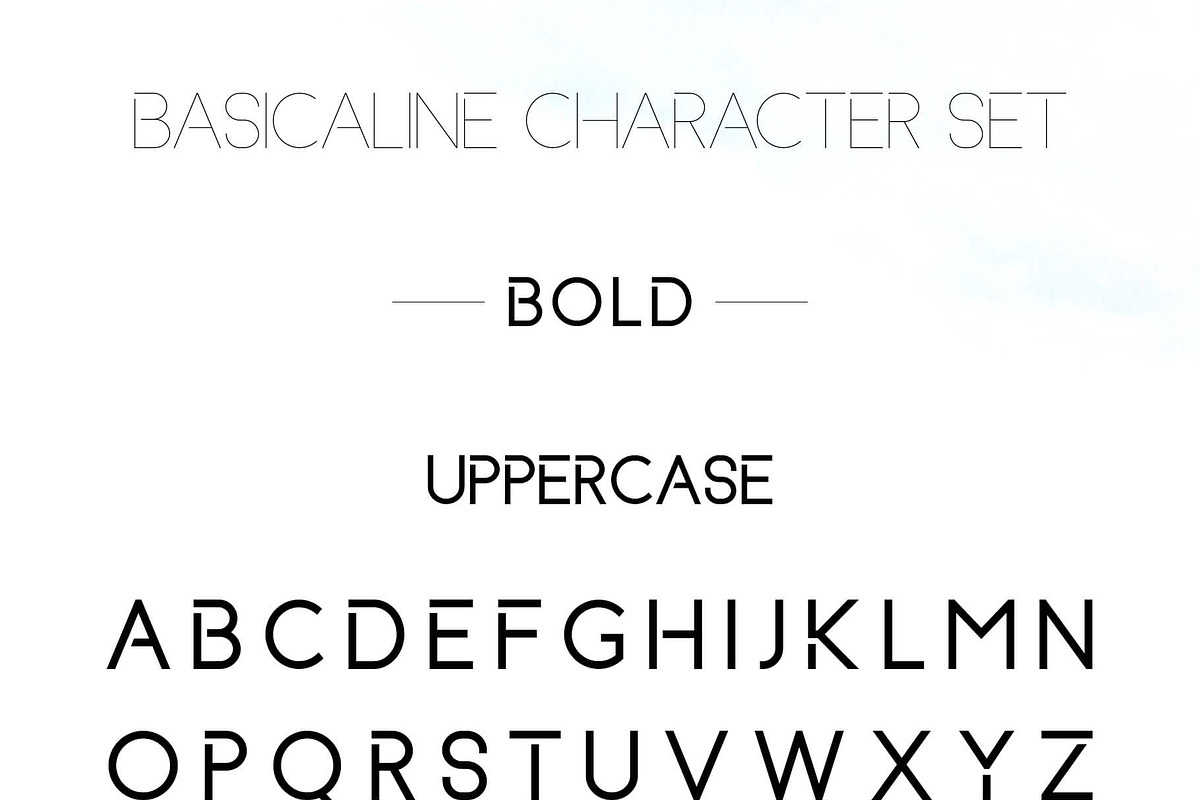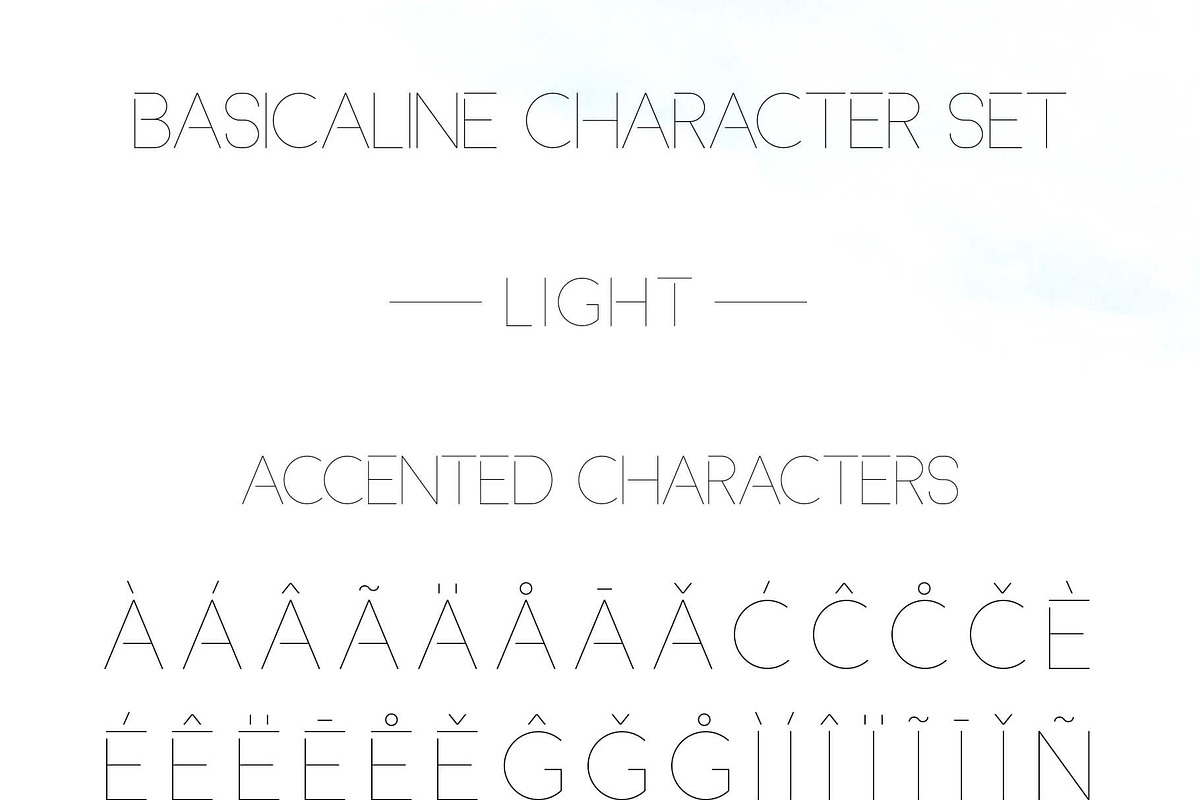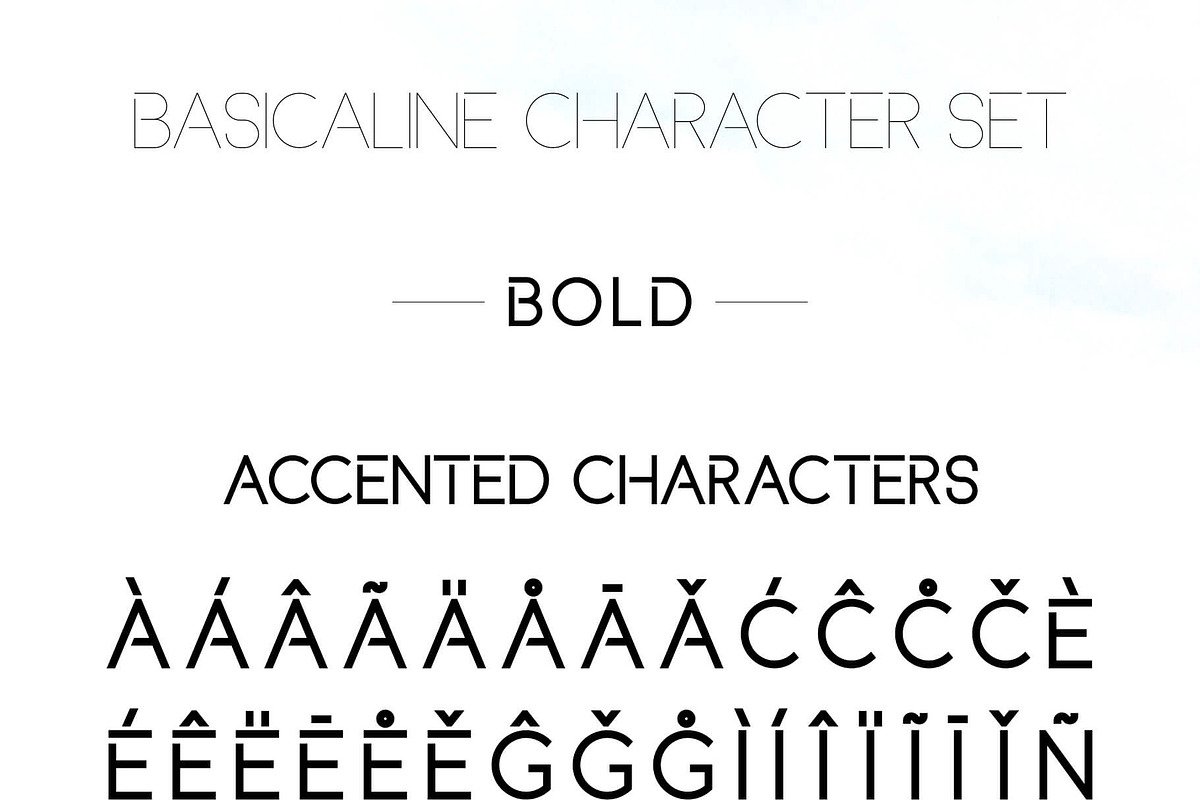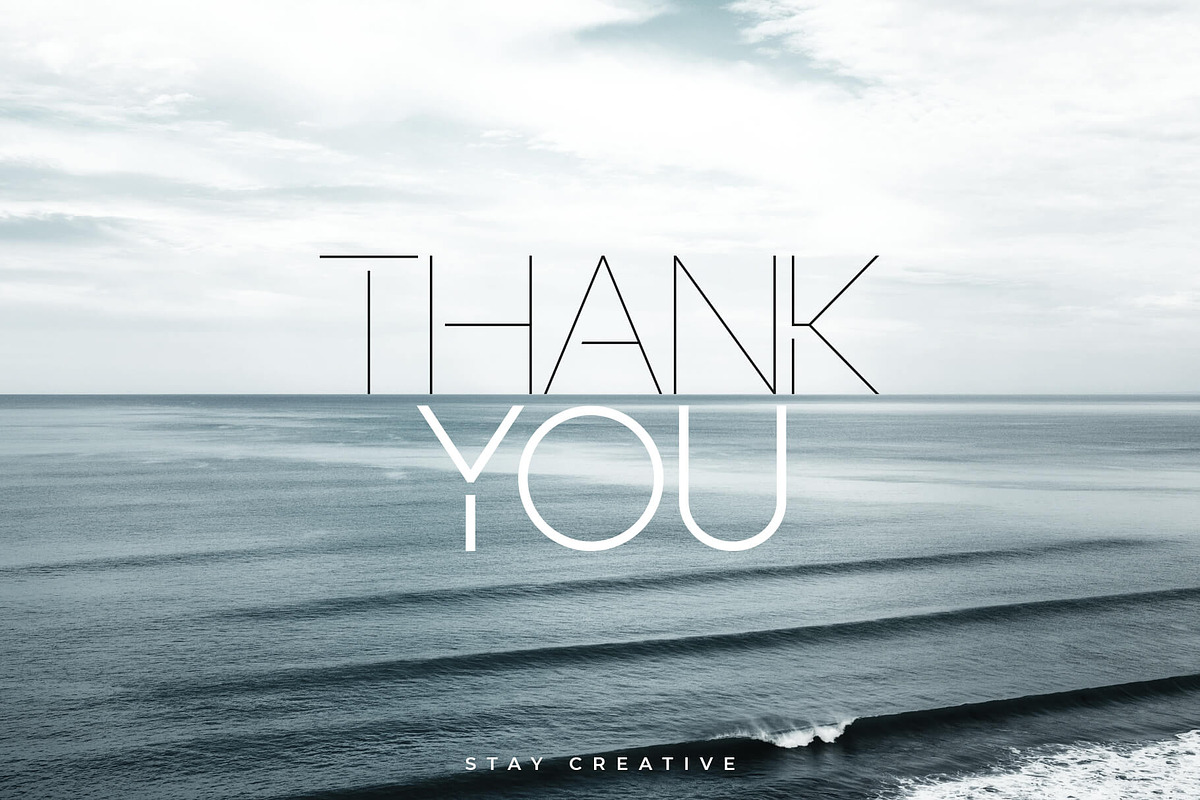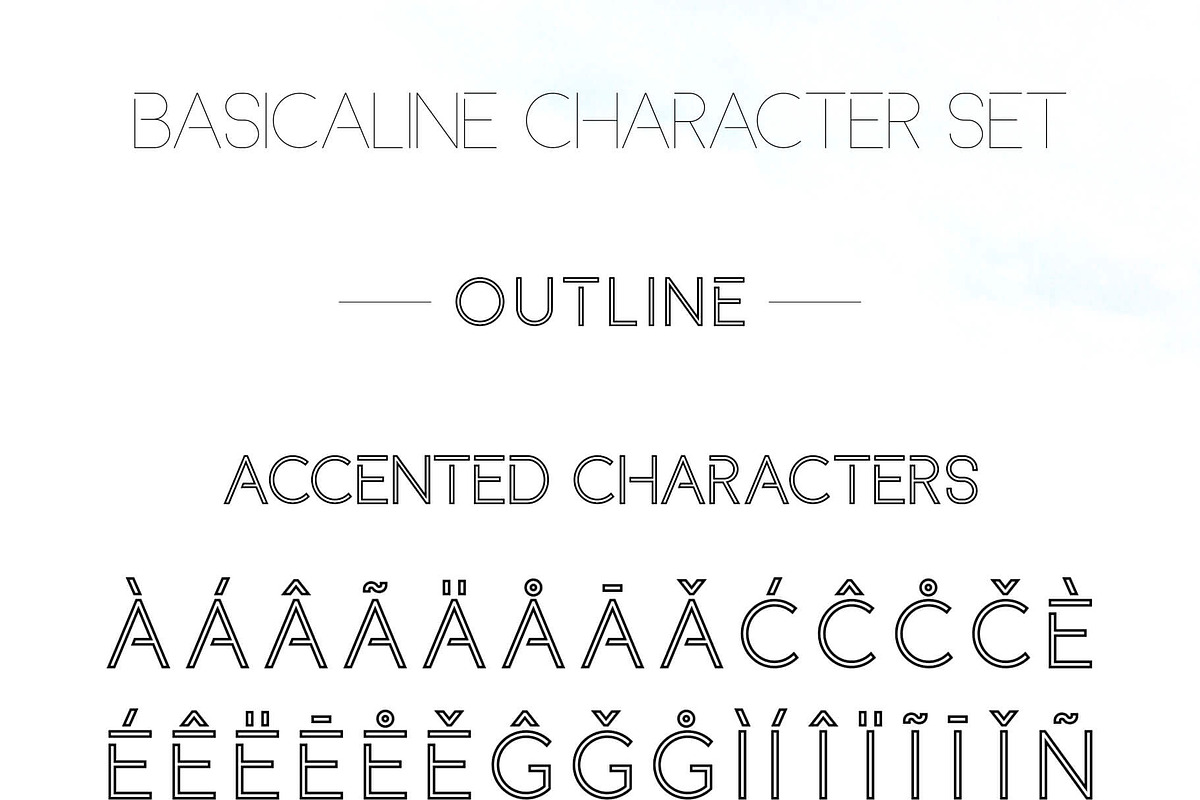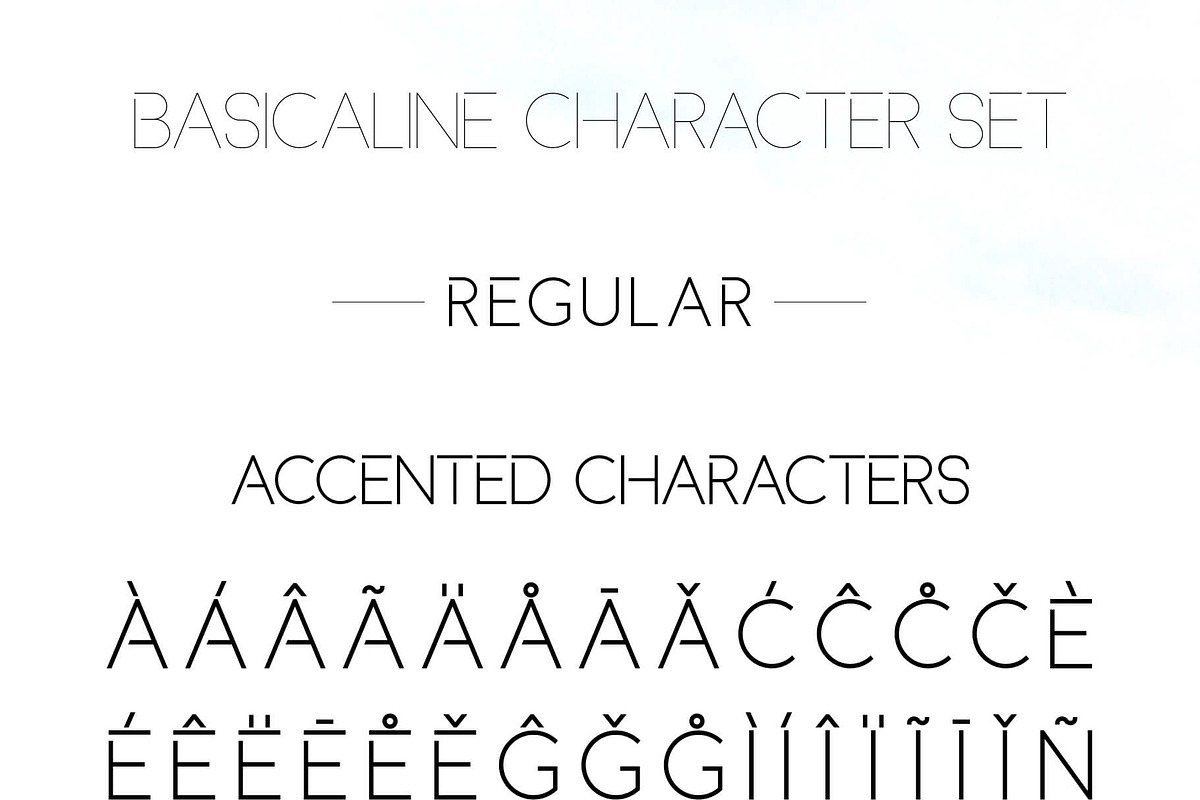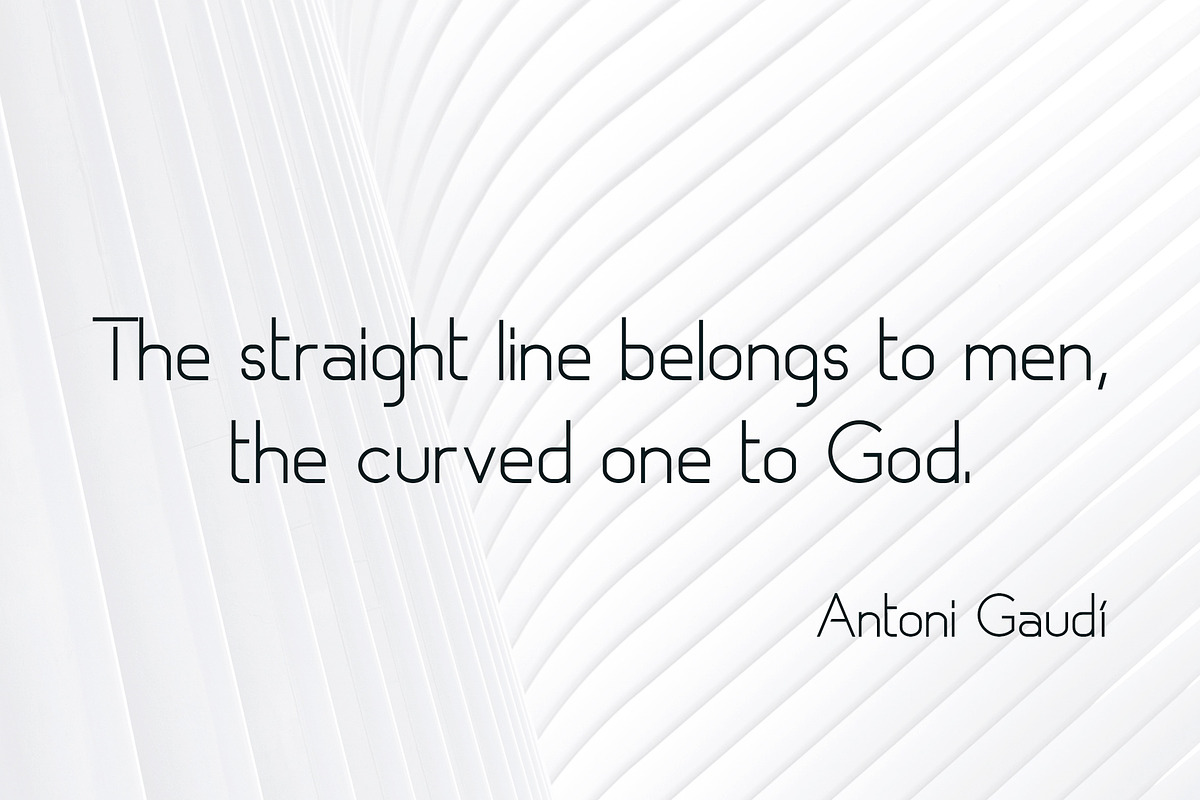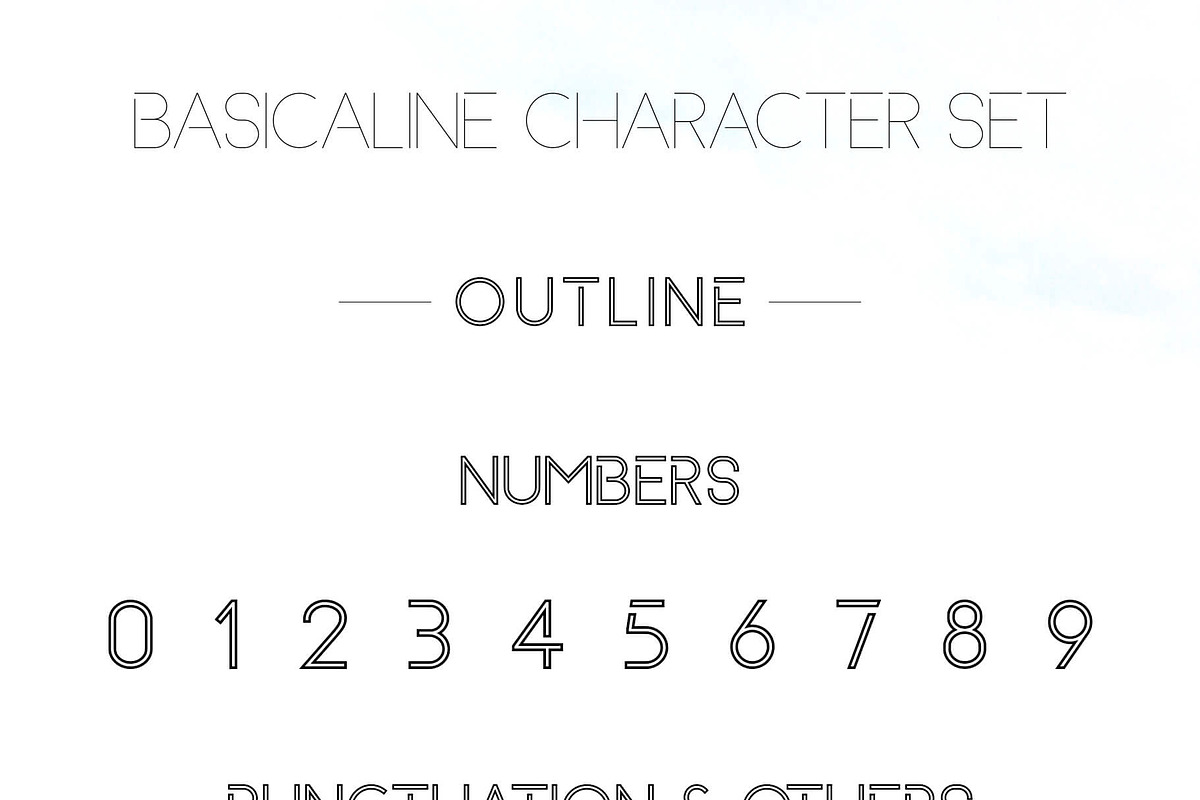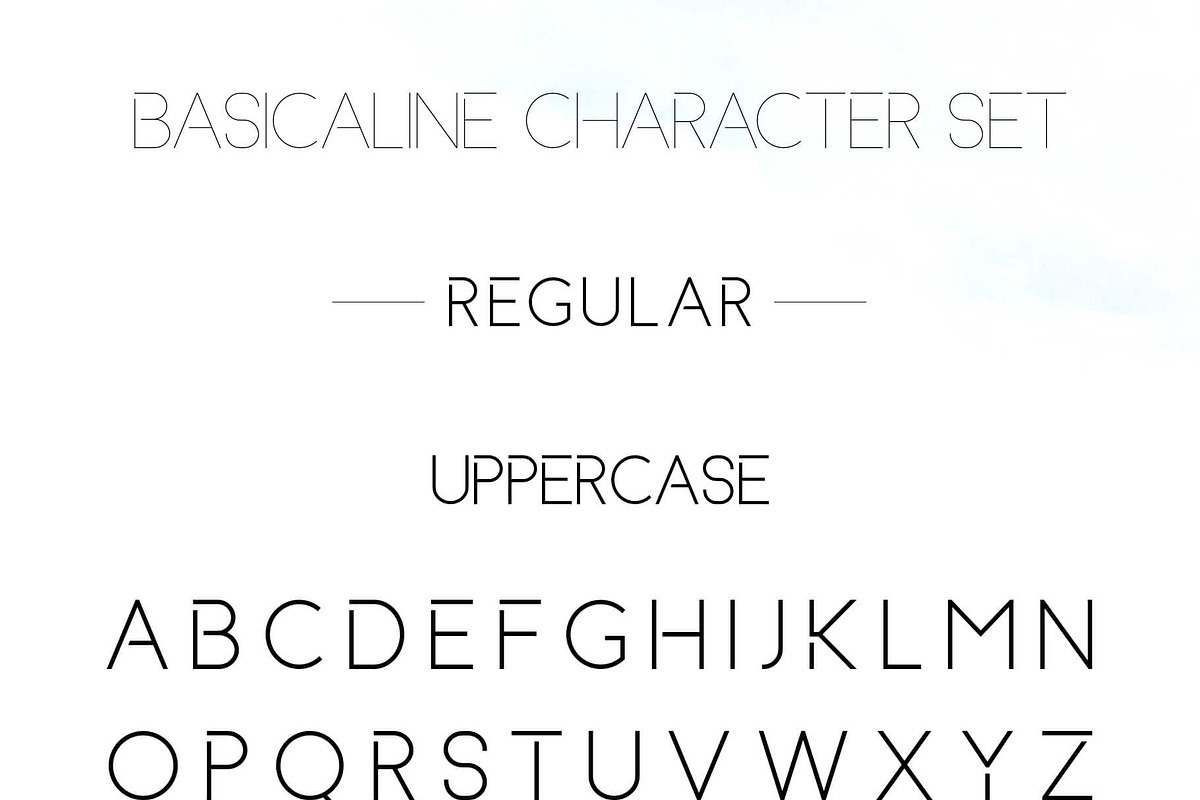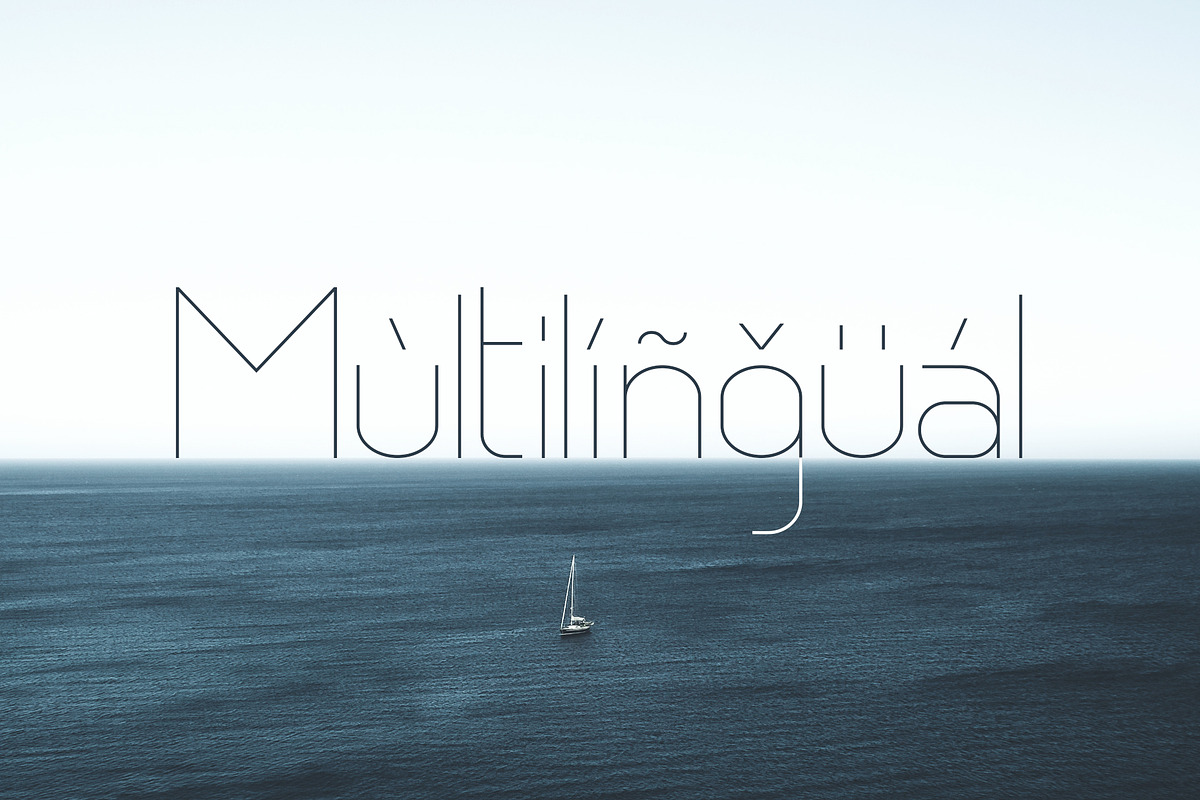
Basicaline Font Family - Sans Serif
Basicaline is an elegant and clean sans serif font. It's a versatile font family designed for strong, classic branding. Basicaline works great in any branding, logos, magazines, videos, product packaging, website headers, clothing designs and much more.
- Light
- Bold
- Outline